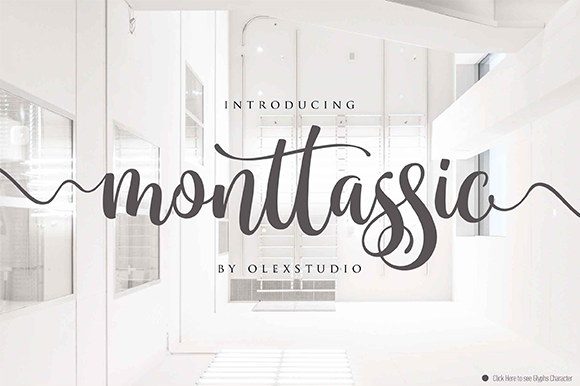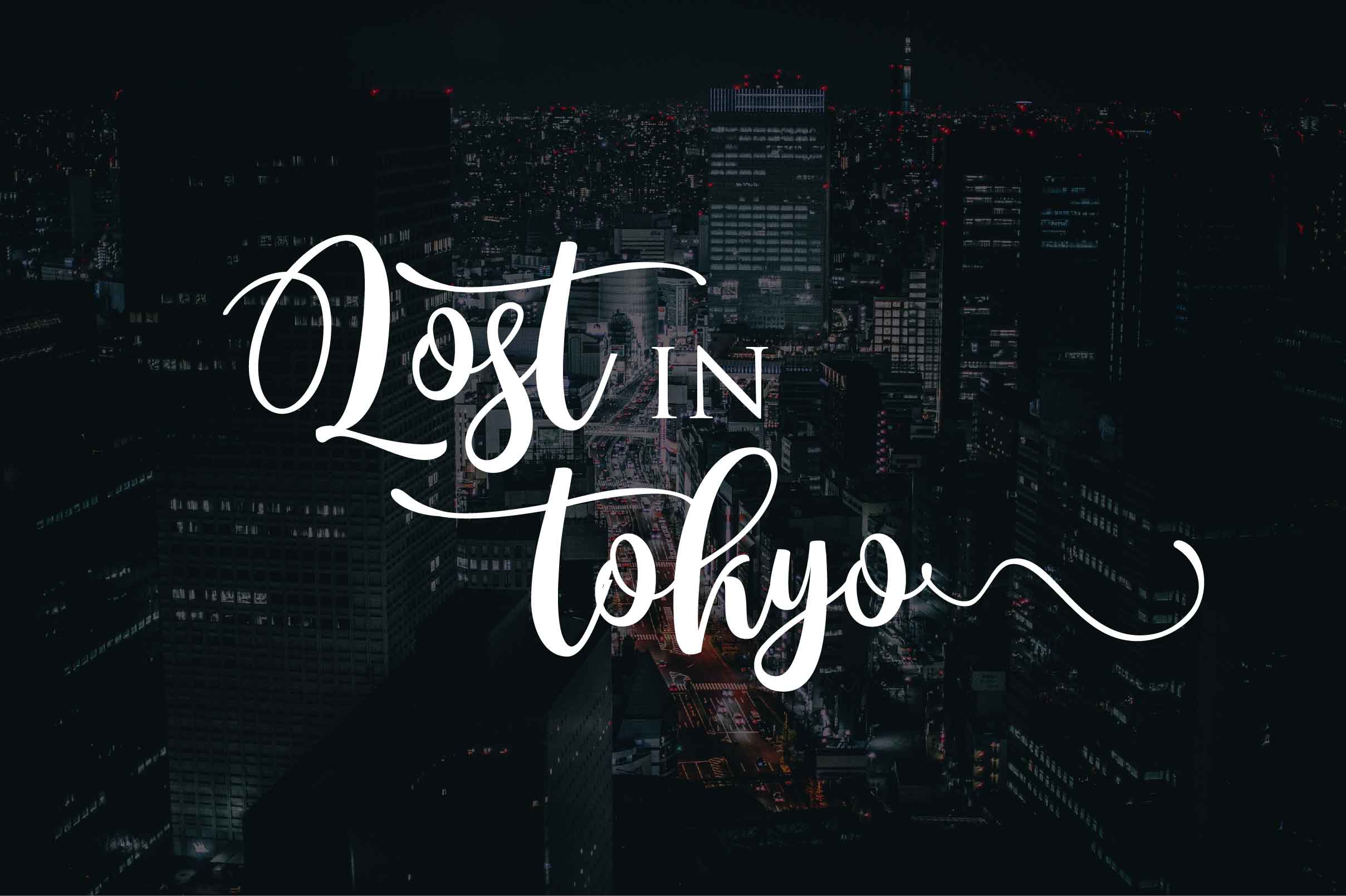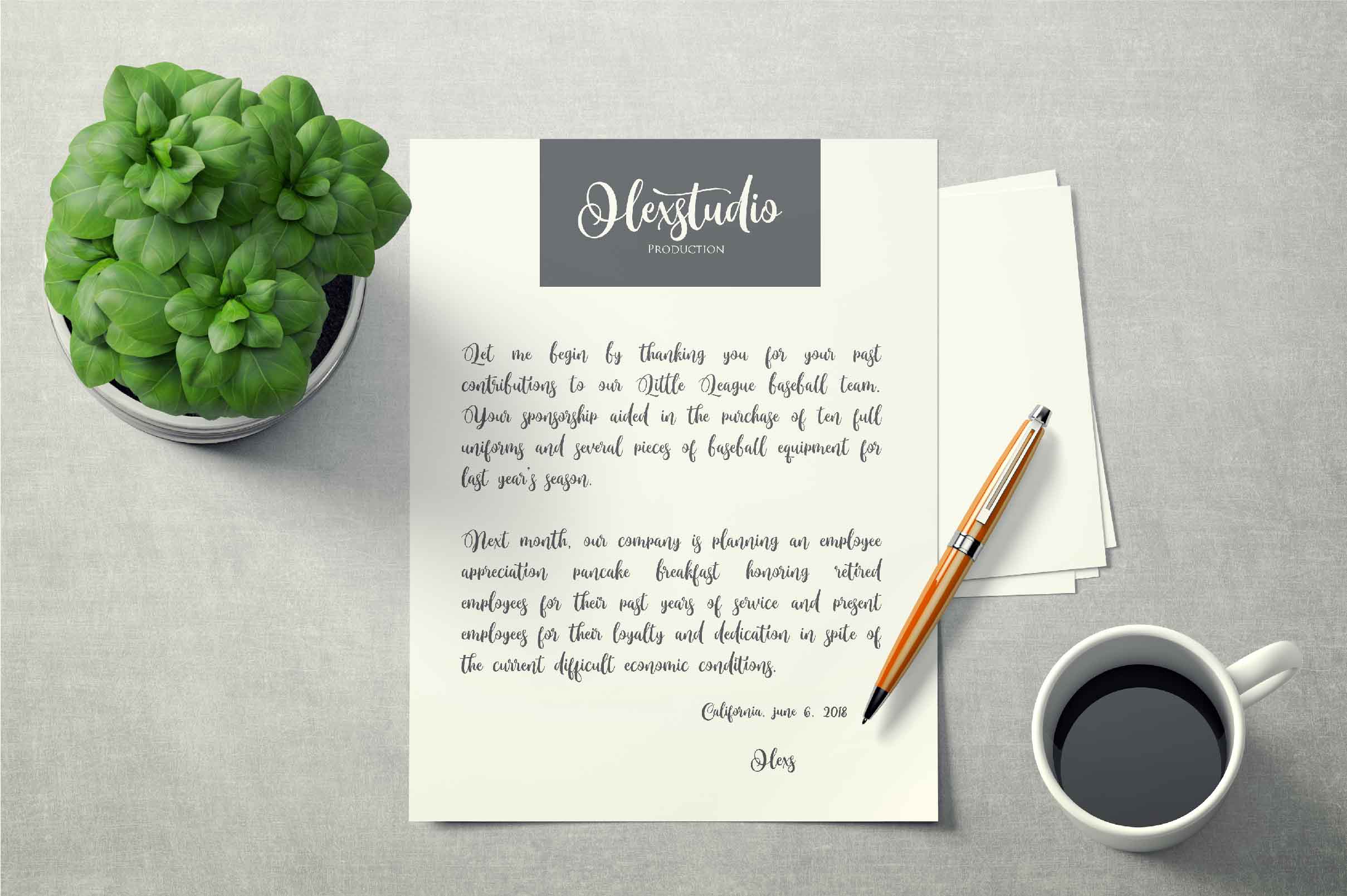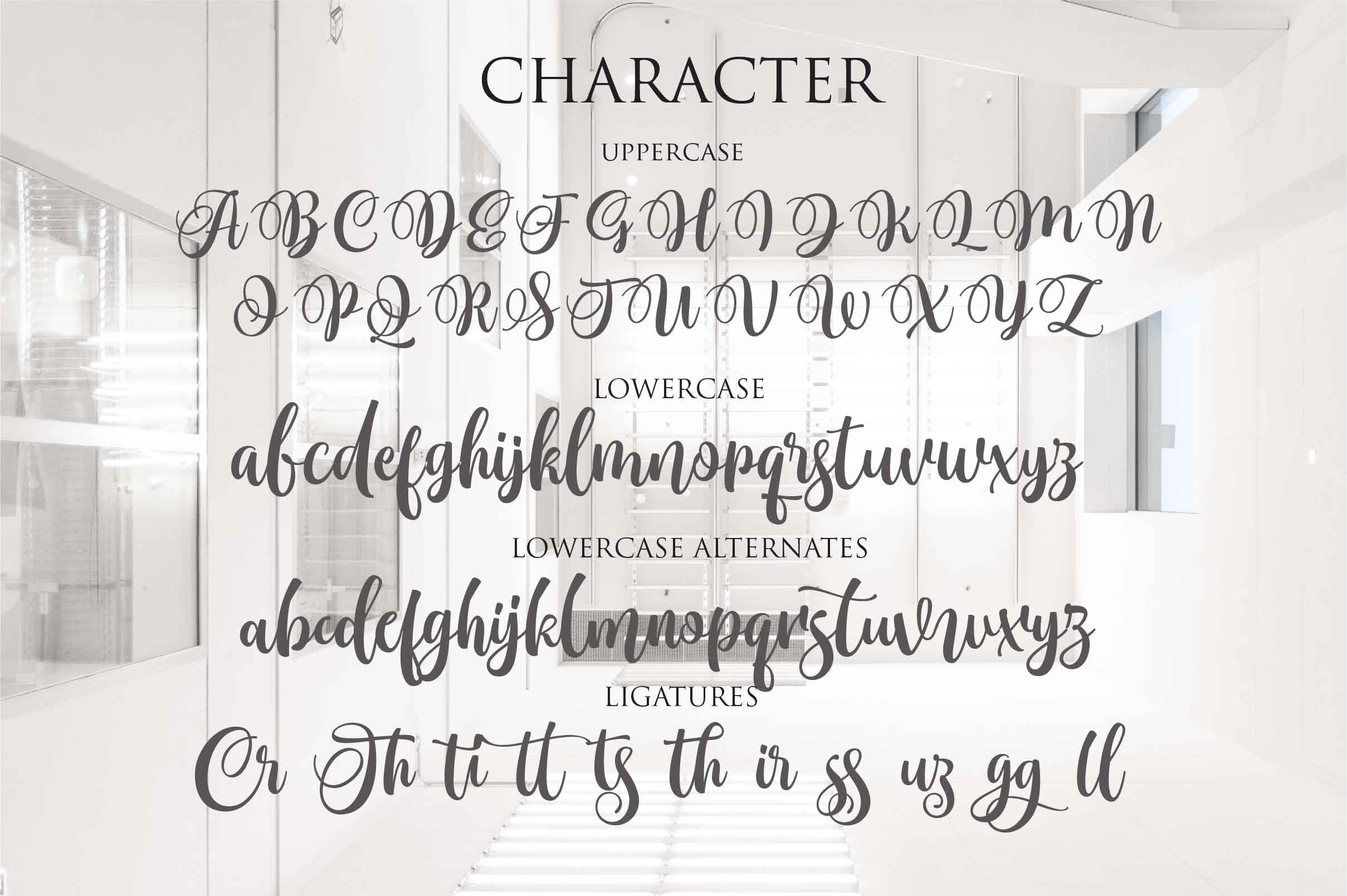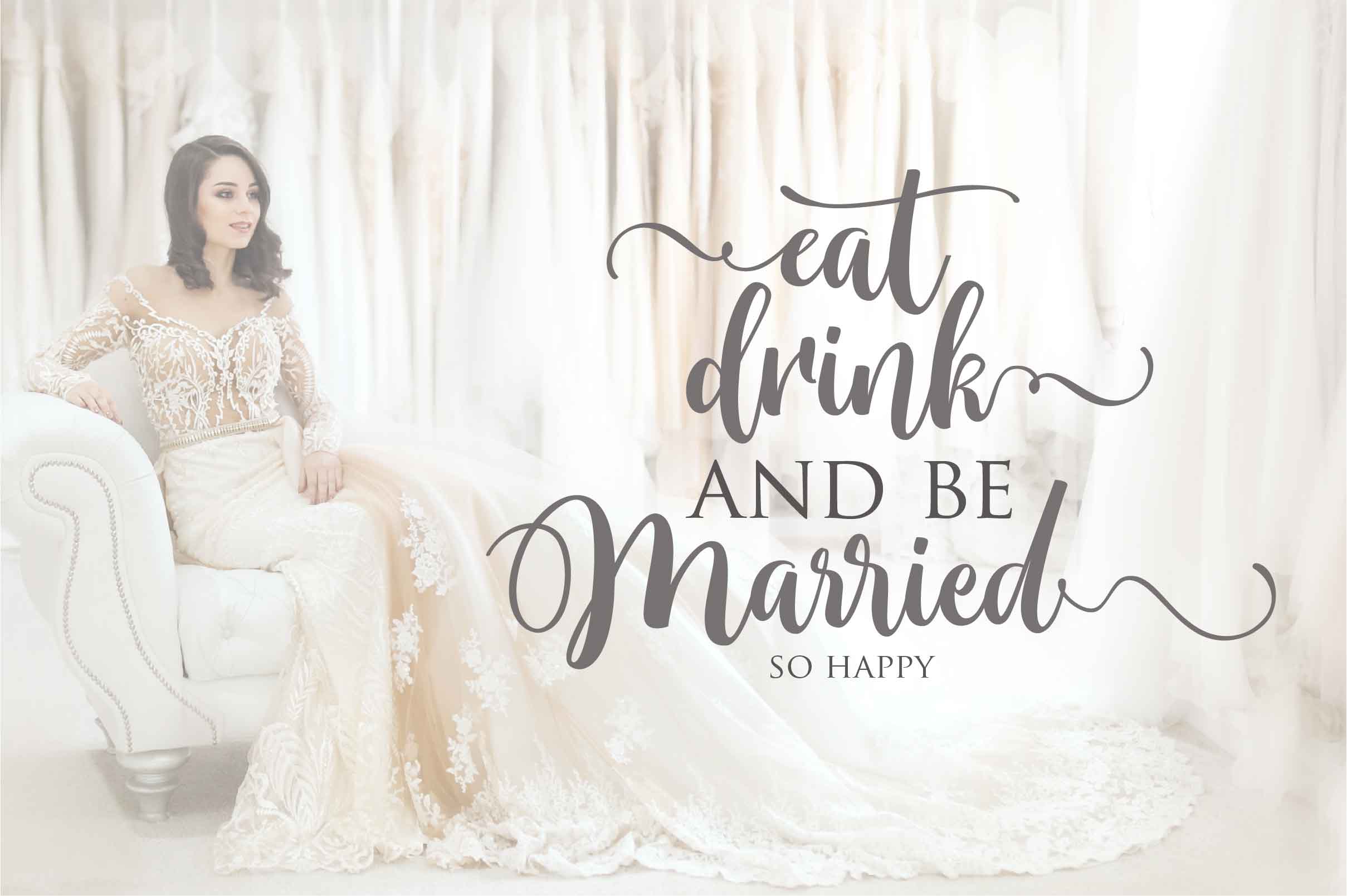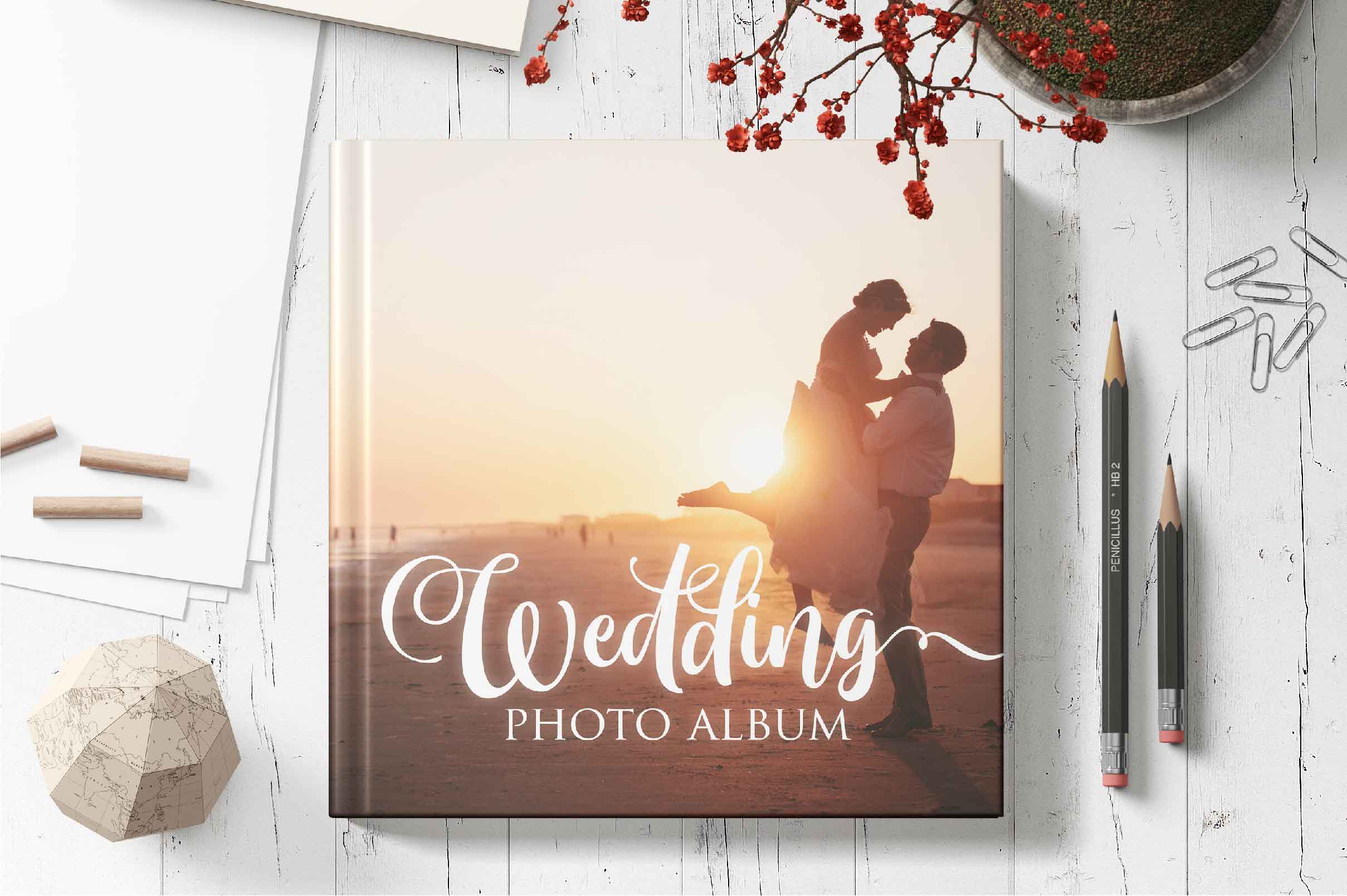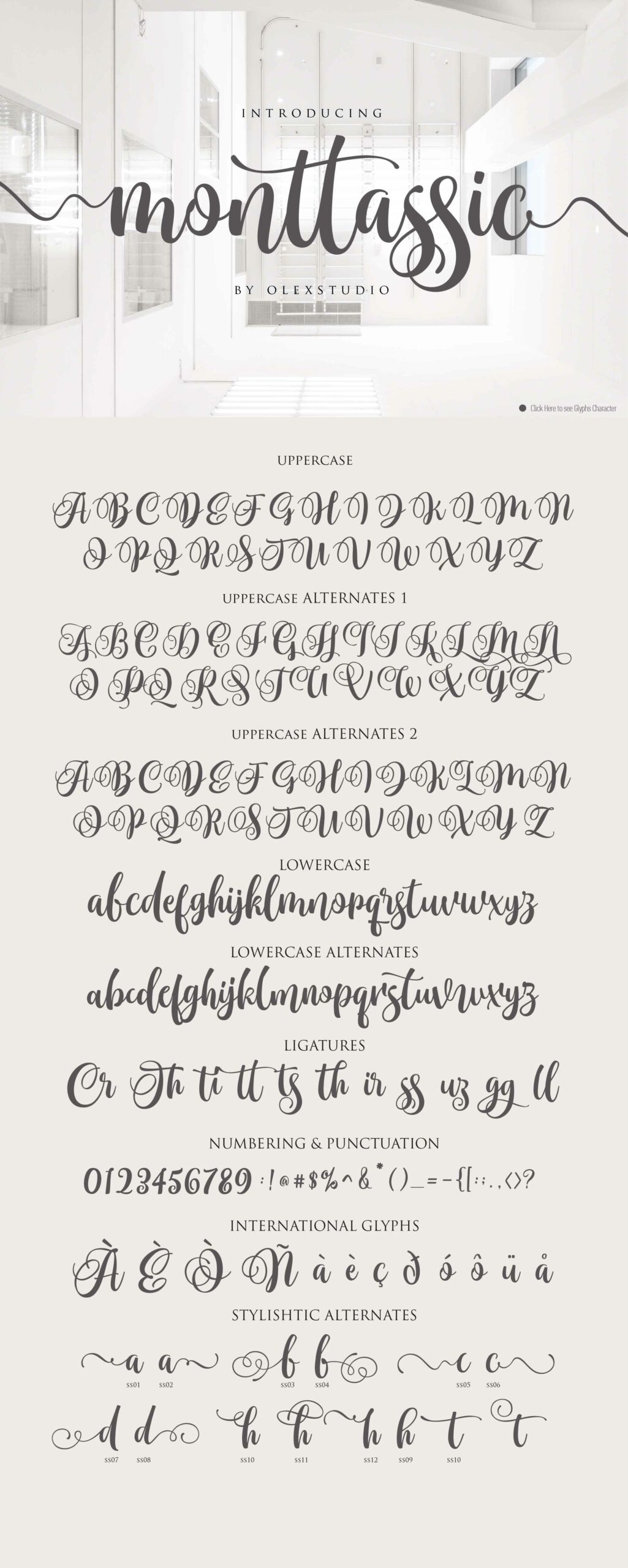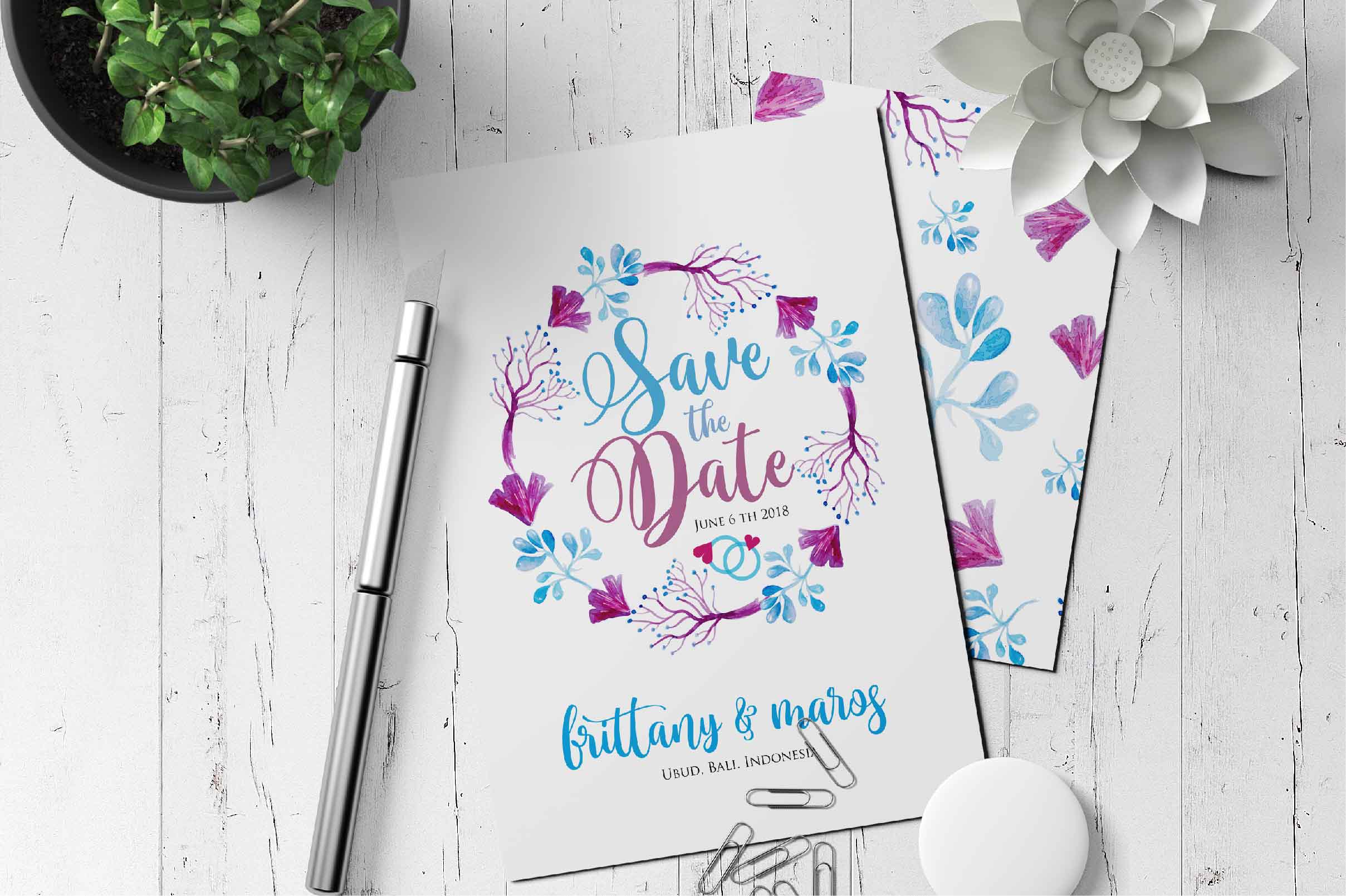
Monttassic Script Font
About Monttassic Script Font
Monttassic is a beautiful, modern clean handlettering script font. This font will look gorgeous on all your designs, giving a romantic and modern feel to your creative projects.